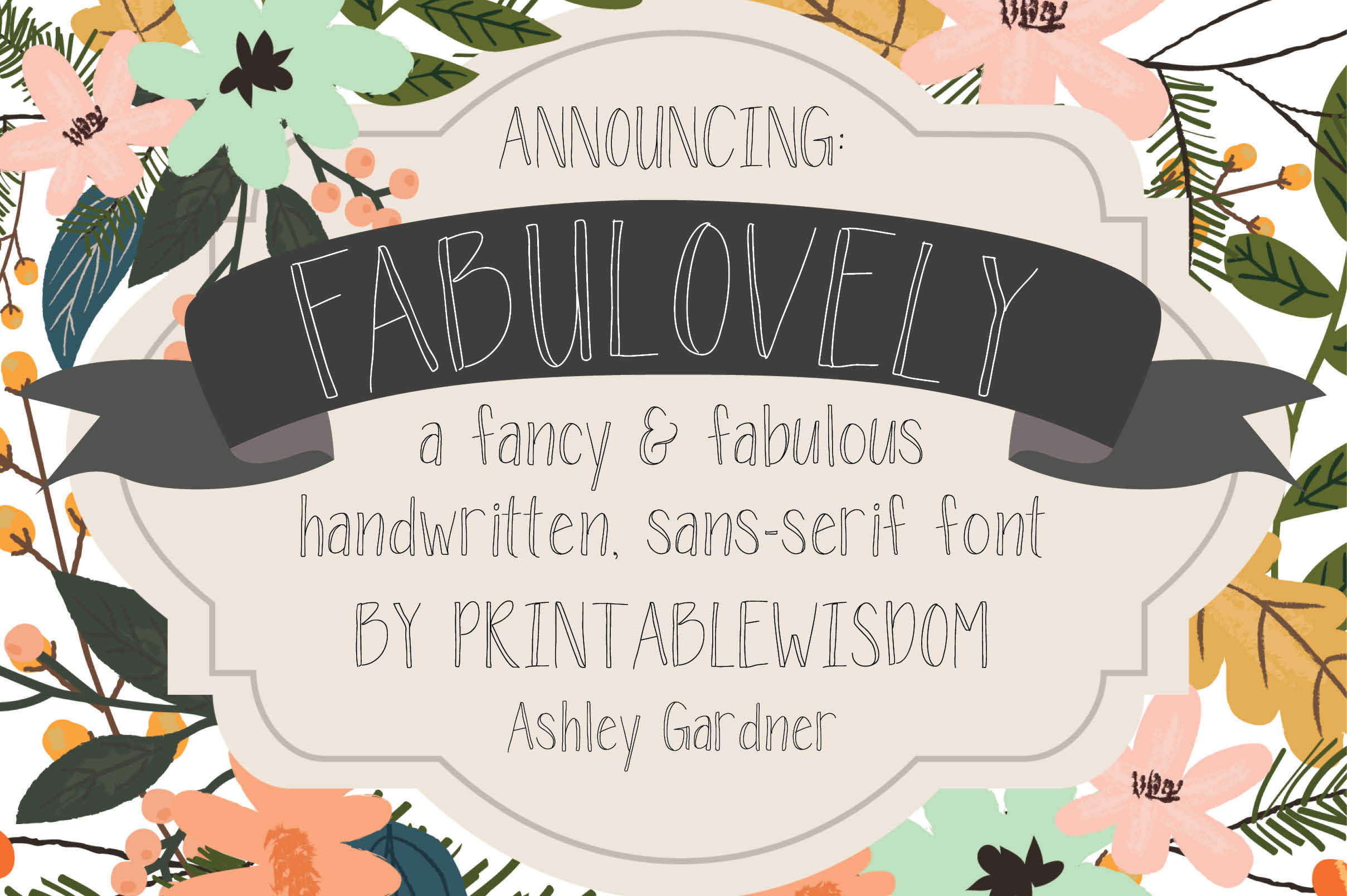
Fabulovely - a fancy sans-serif font
Fabulovely is a decorative sans-serif font that is dressed to impress with fun details and a stand-out ampersand!